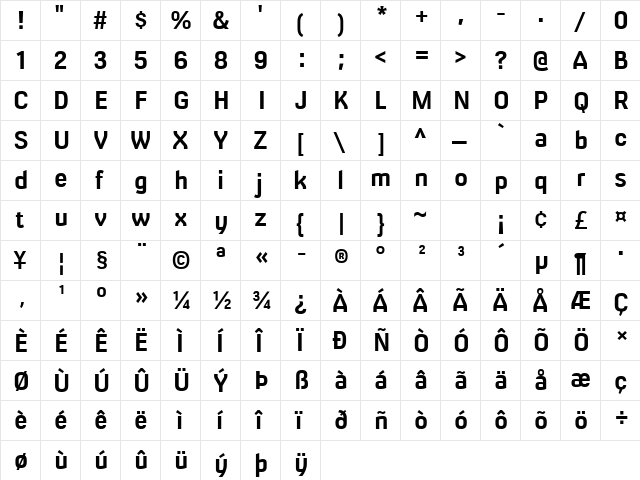
Milibus Rg Regular
Design Context for Milibus Rg Typeface
Milibus Rg is a composed and adaptable typeface that performs quietly and consistently across a wide range of design contexts.